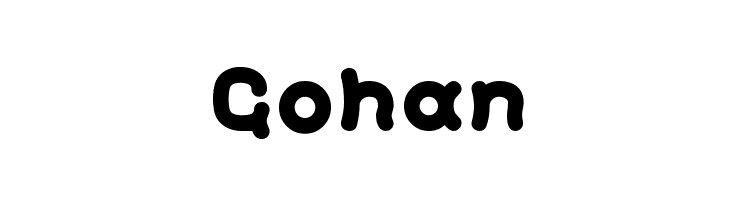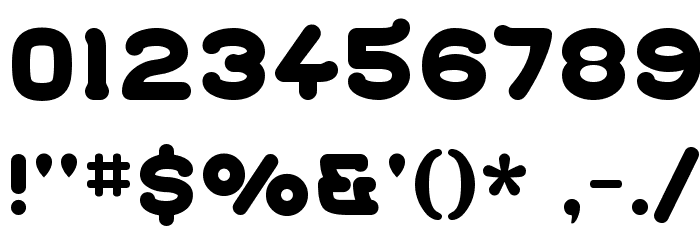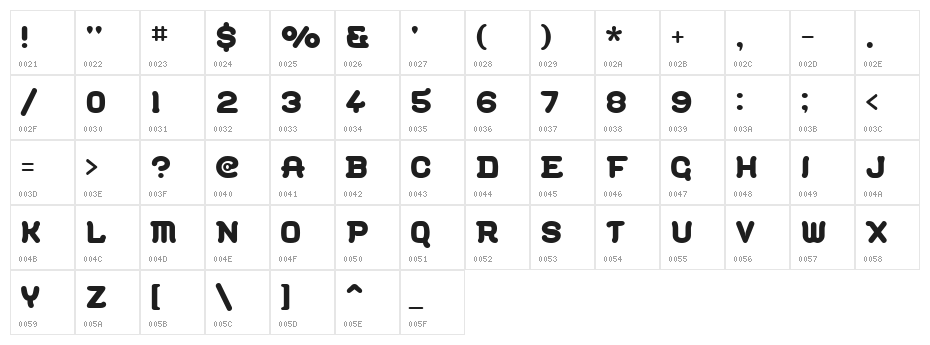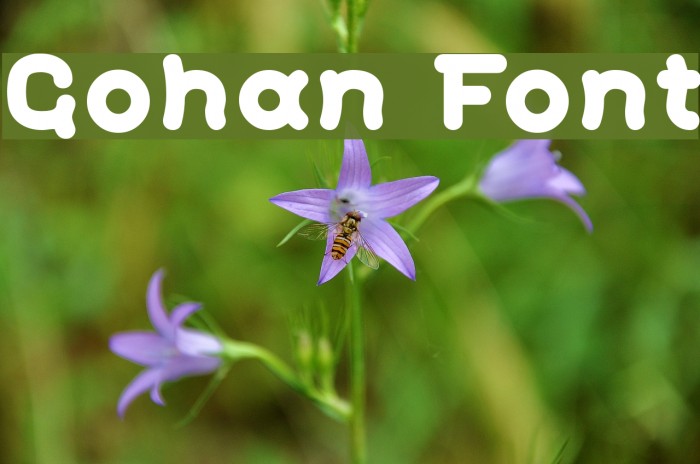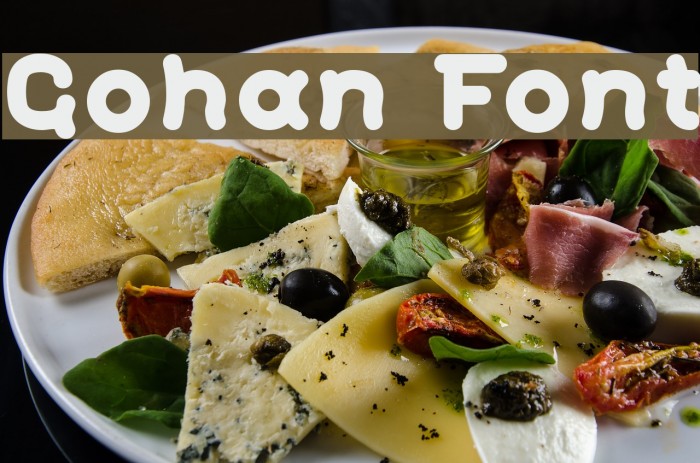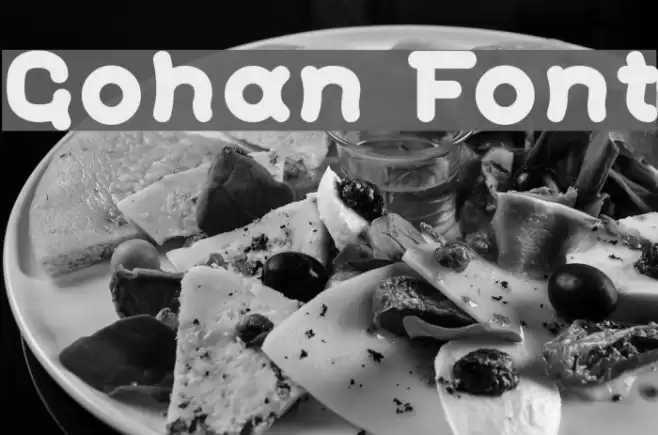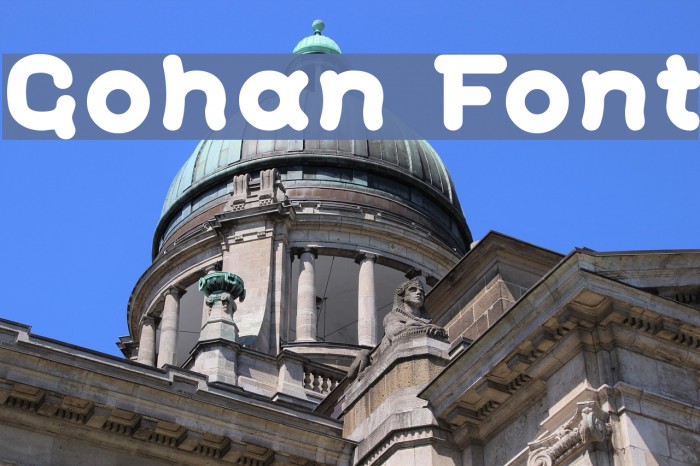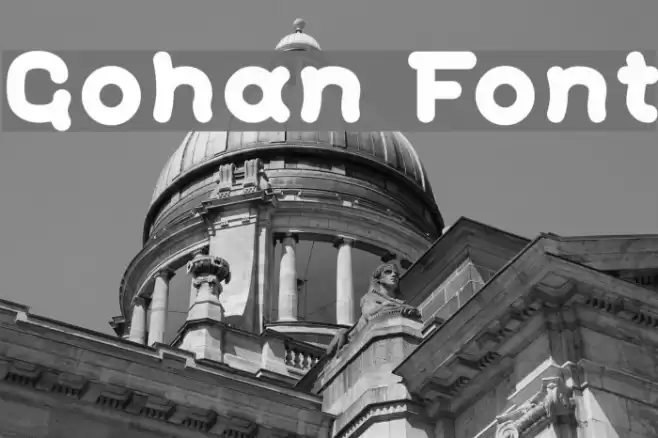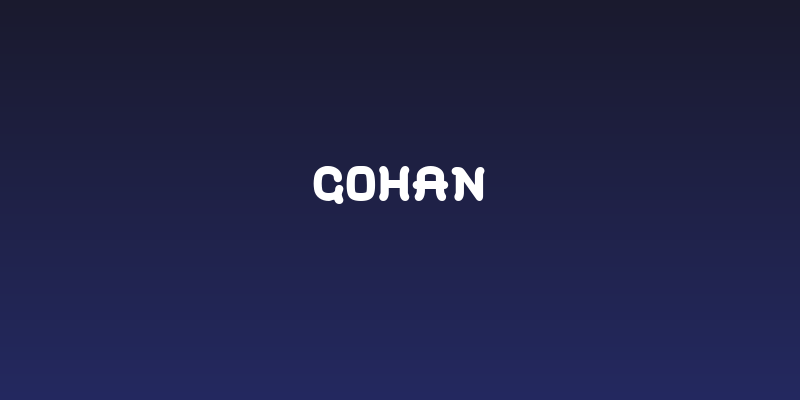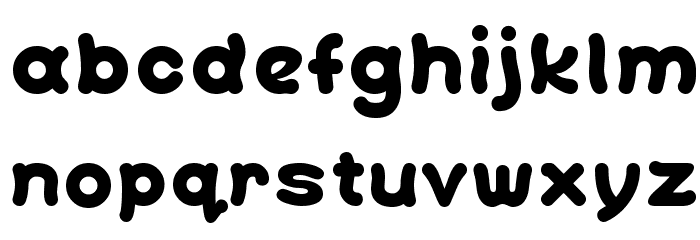
Gohan Font
Gohan Description
This font features a playful and rounded style, characterized by its bold and thick strokes. The letters have a soft, almost bubble-like appearance, giving it a friendly and approachable feel. The uppercase and lowercase letters maintain a consistent weight, creating a harmonious look across the alphabet. The numbers and special characters follow the same design principles, ensuring uniformity throughout. Its rounded edges and smooth curves make it ideal for projects that require a touch of whimsy and fun. The font's overall style is both modern and casual, making it versatile for various creative applications.
| Overall Style | Modern, Playful |
| Proposed Projects | Ideal for children's books, playful branding, casual invitations, and fun social media graphics. |